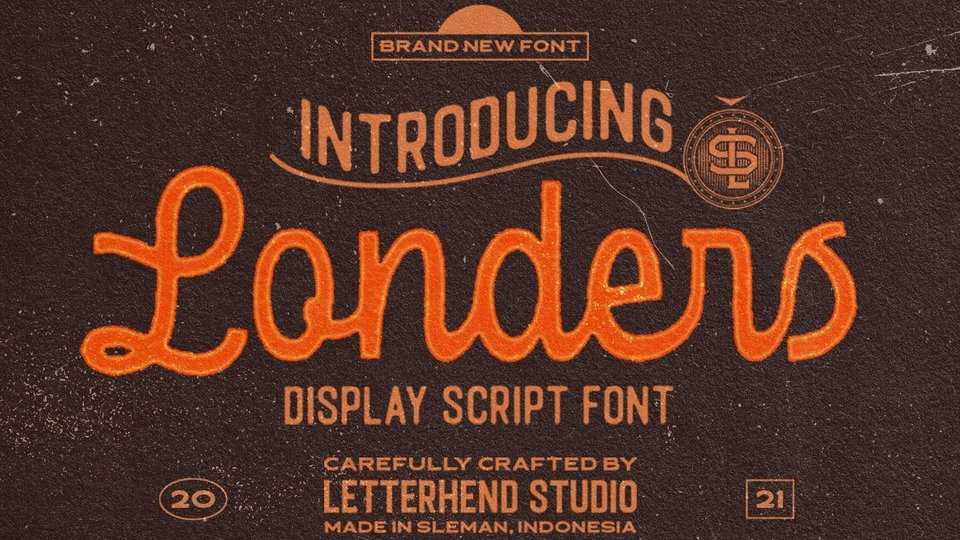
Download Londers font, a standout bold script typeface with a touch of vintage look and feel. With its incredibly versatile style and Londers is perfect to create spectacular designs.